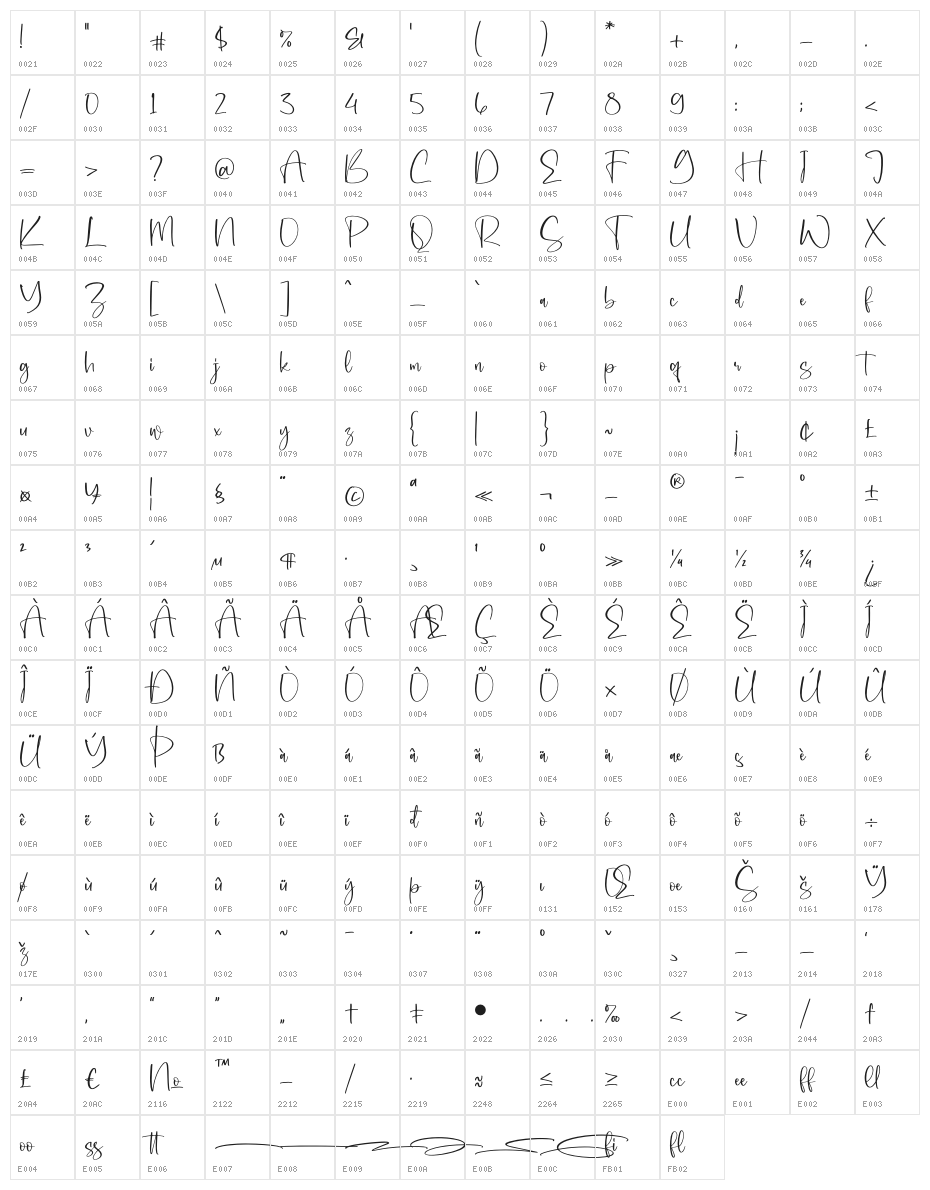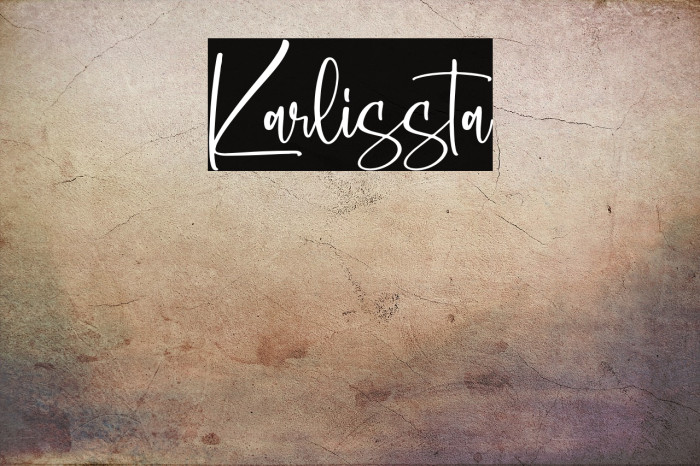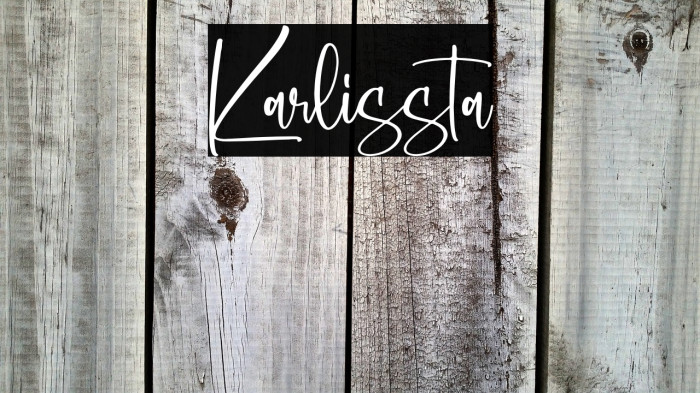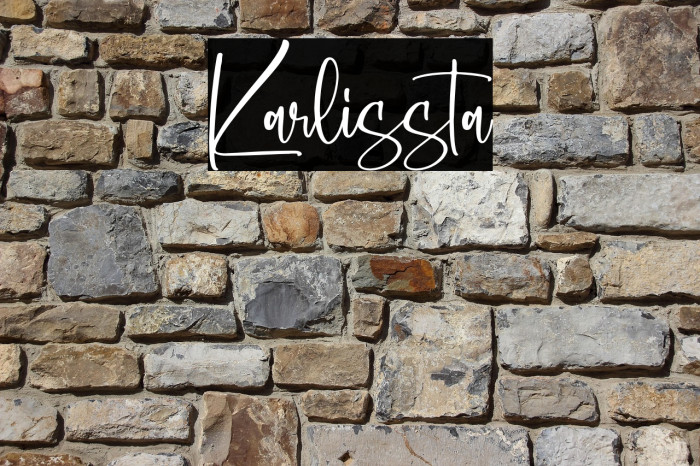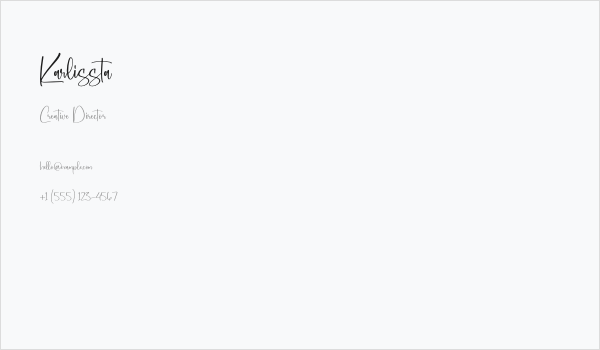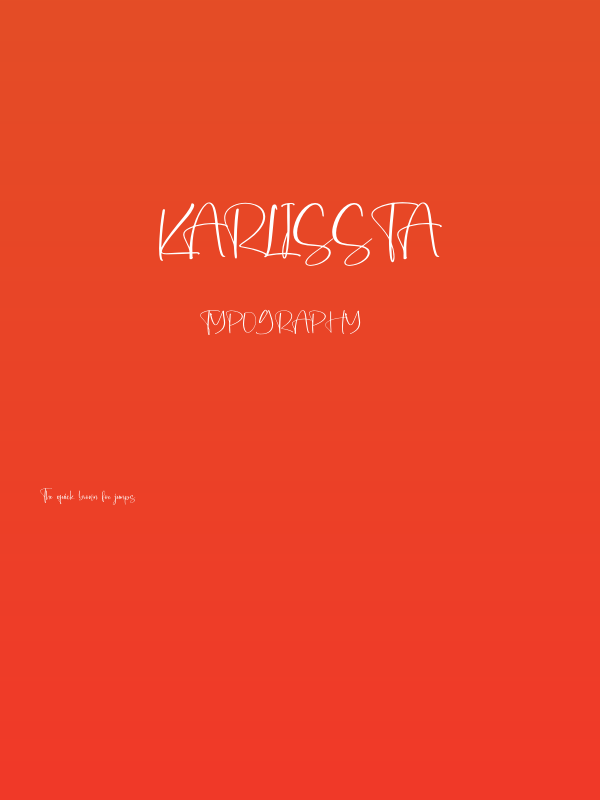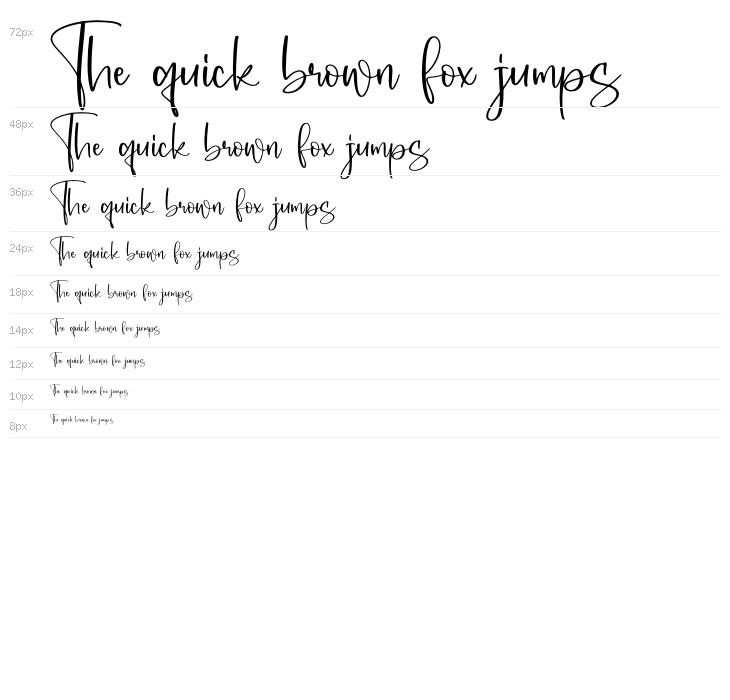
Karlissta Font
Karlissta Description
This font exudes a playful and artistic flair, characterized by its flowing, handwritten style. The uppercase letters are tall and slender, with a whimsical touch that adds a sense of movement and energy. The lowercase letters maintain a consistent fluidity, offering a harmonious blend of curves and loops. Numbers and special characters are crafted with the same artistic approach, ensuring a cohesive look across all elements. The font's overall appearance is both elegant and casual, making it versatile for various creative applications.
| Use Case | Logos, Invitations, Creative projects |
| Proposed Projects | Ideal for wedding invitations, greeting cards, personal branding, and creative posters. |